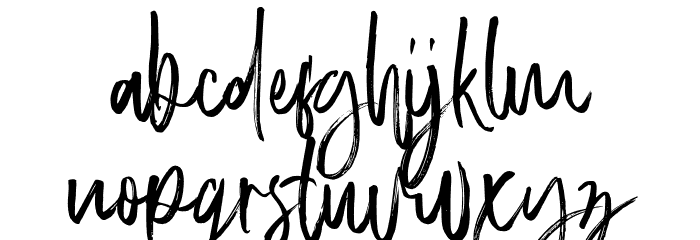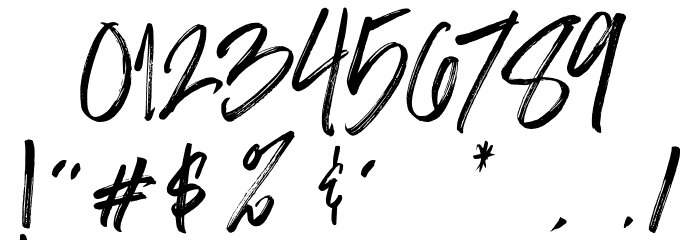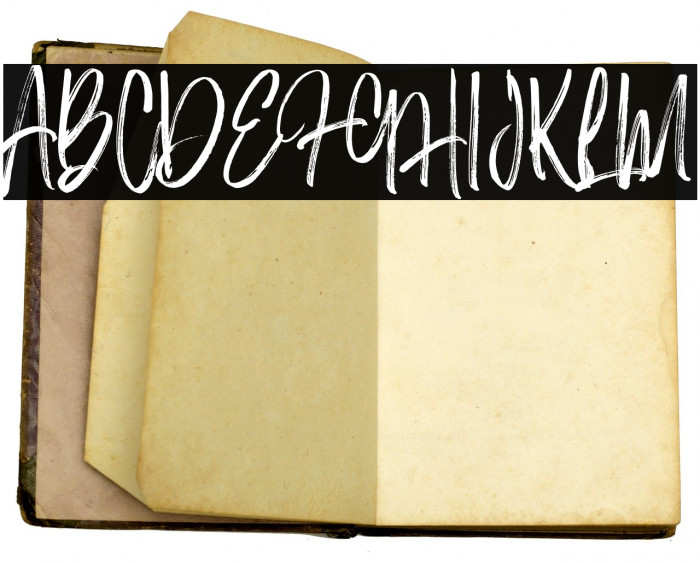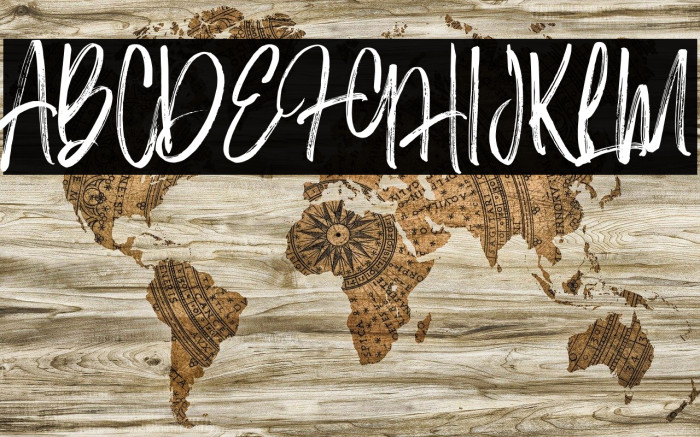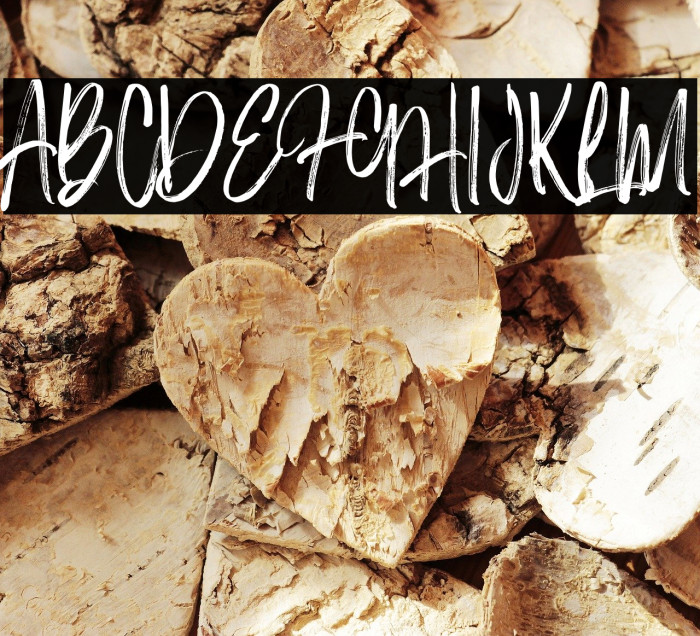
TheBlackHat Font
This font exudes a dynamic and expressive style, characterized by its bold, brush-like strokes that convey a sense of energy and movement. The letters are crafted with a hand-drawn appearance, featuring irregularities and variations in thickness that add to its artistic flair. The uppercase letters are tall and commanding, while the lowercase letters maintain a fluid and connected script-like quality. Numbers and special characters follow the same expressive style, making the font versatile for creative projects. The overall look is both modern and artistic, suitable for designs that require a personal touch.
A bold, brush-style font with an expressive, hand-drawn appearance.
- Proposed Projects: Ideal for artistic projects, branding, posters, and invitations where a personal, creative touch is desired.
- Overall Style: Modern, Artistic